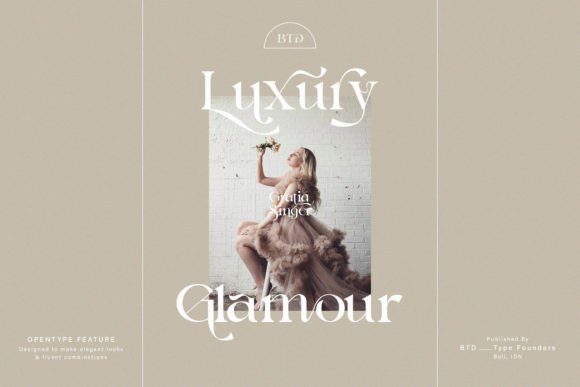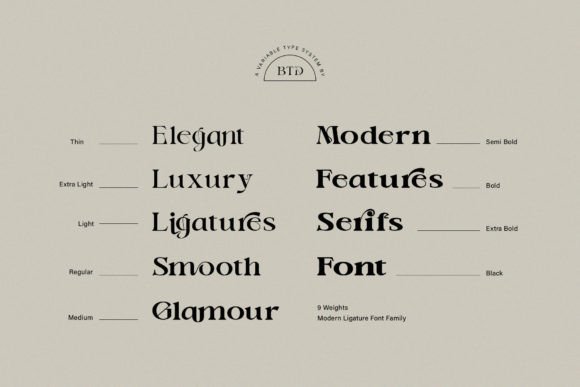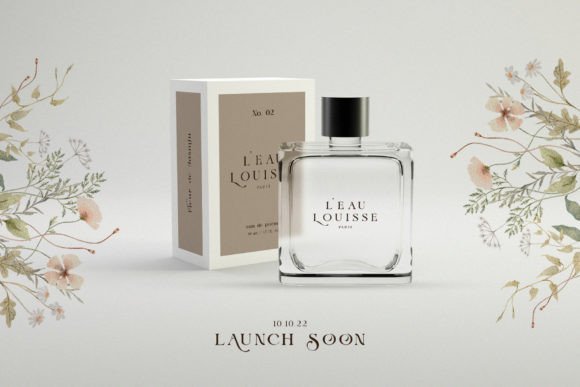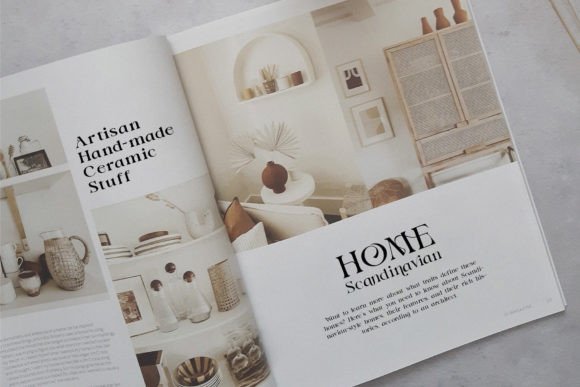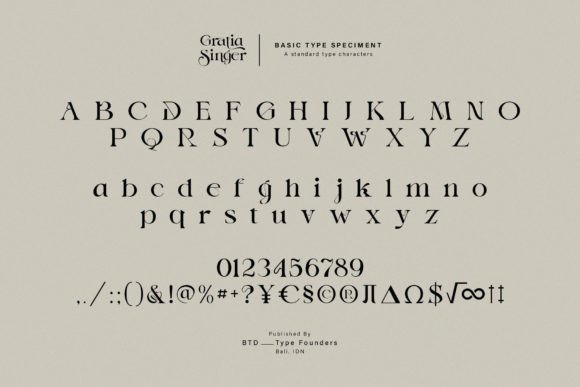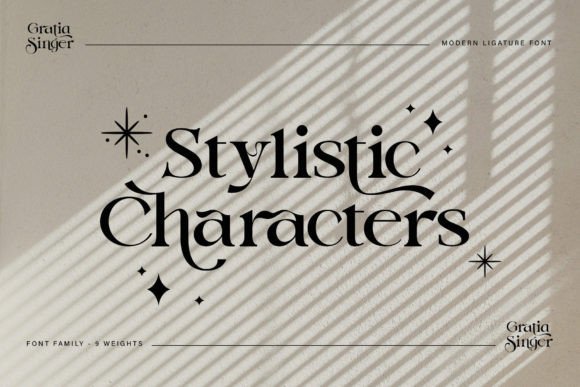
Introduction to Gratia Singer Font
Gratia Singer is a beautiful serif font that has a broad appeal and can be used for any project.
This typeface will enhance your craft with little effort, making your product stand out from the competition This stylish font is also PUA encoded, which means you can easily access all the glyphs and ligatures.
Key Features of Gratia Singer Font
Why Choose Gratia Singer Font?
Gratia Singer Font offers exceptional quality and versatility, making it a valuable addition to your design toolkit. Whether you’re creating for personal projects or commercial use, Gratia Singer Font delivers professional results.